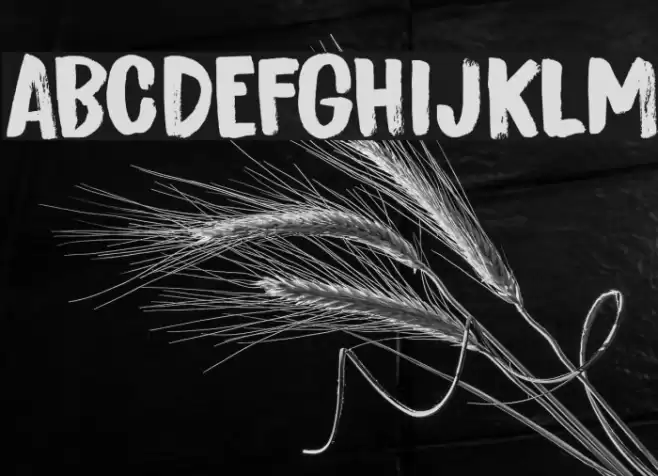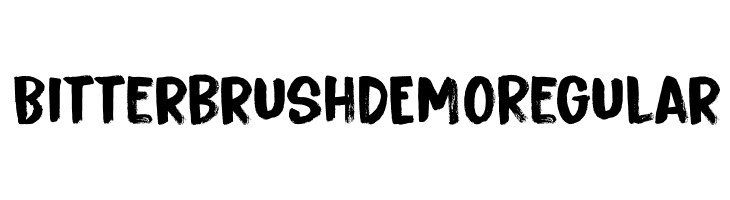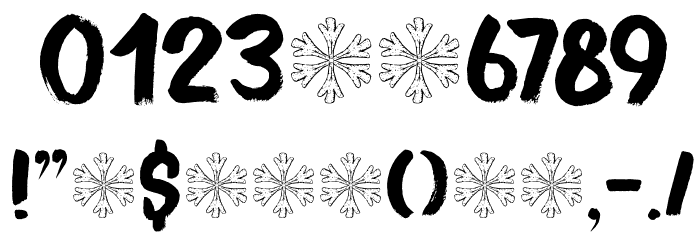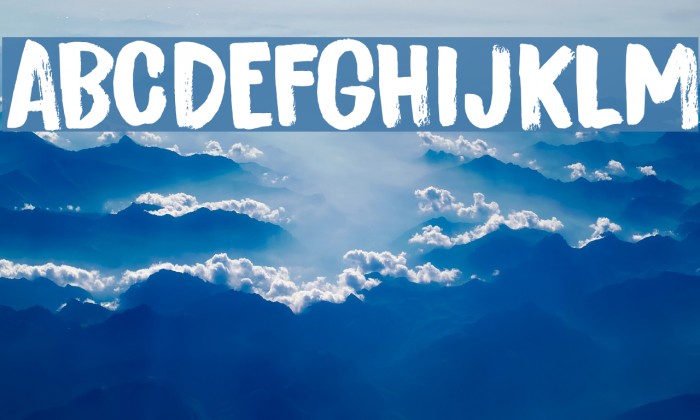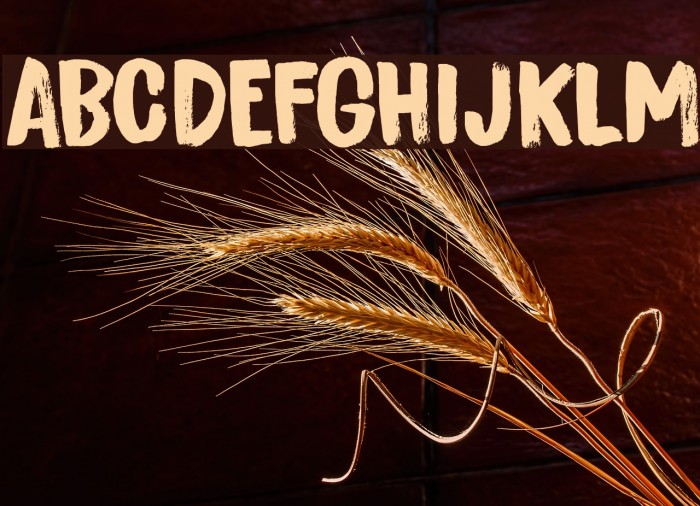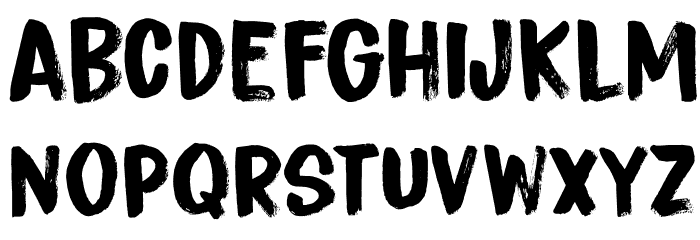
Bitterbrush DEMO Regular Font
Bitterbrush DEMO Regular Description
This font features a bold, brush-stroke style that exudes a sense of energy and dynamism. The characters are crafted with a rough, textured appearance, giving them a hand-painted feel. The uppercase and lowercase letters maintain a consistent style, with thick strokes and slightly irregular edges that add to the organic look. The numbers and special characters follow the same design principles, ensuring a cohesive appearance across all elements. This font's unique style makes it stand out, perfect for projects that require a touch of creativity and flair.
A bold, brush-stroke font with a textured, hand-painted appearance from Uncategorized fonts.
- Proposed Projects: Ideal for posters, branding, packaging, and any creative projects that need a bold, artistic touch.